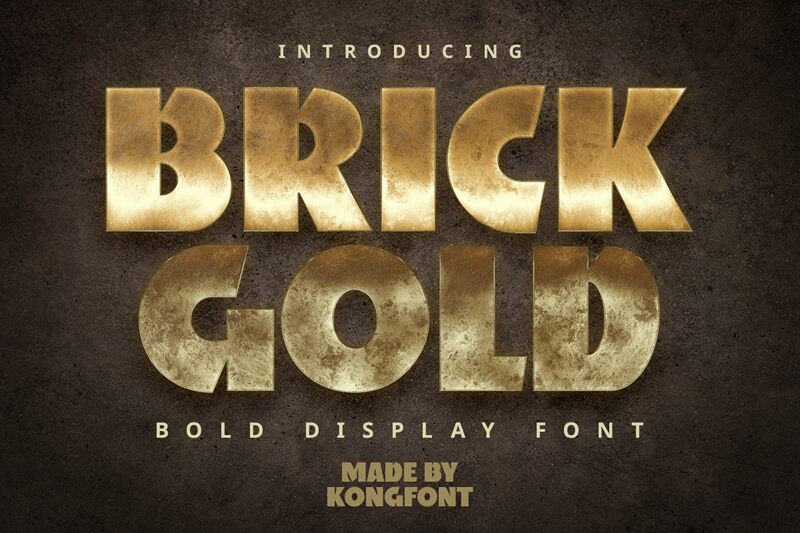
Brickgold font by Kong Font is a bold display typeface that draws inspiration from retro aesthetics. Its strong, striking visual presence makes it perfect for projects requiring a nostalgic yet impactful design. The font's robust letterforms exude confidence and charm, making it ideal for headlines, posters, and branding that seek to capture attention with flair.
Potential use cases include vintage-themed designs, eye-catching advertisements, or any creative endeavor where boldness is key. Download this free font to add a distinctive retro touch to your next project. With its unique style and versatile appeal, Brickgold stands ready to make a memorable impression in both digital and print media.